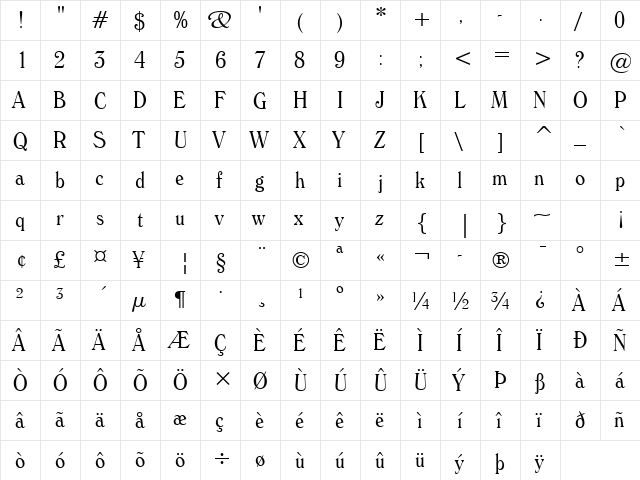
Windsor Light
Design Context for Windsor Typeface
Windsor is a composed and adaptable typeface that performs quietly and consistently across a wide range of design contexts. The delicate stroke weight brings airiness and refinement to layouts.